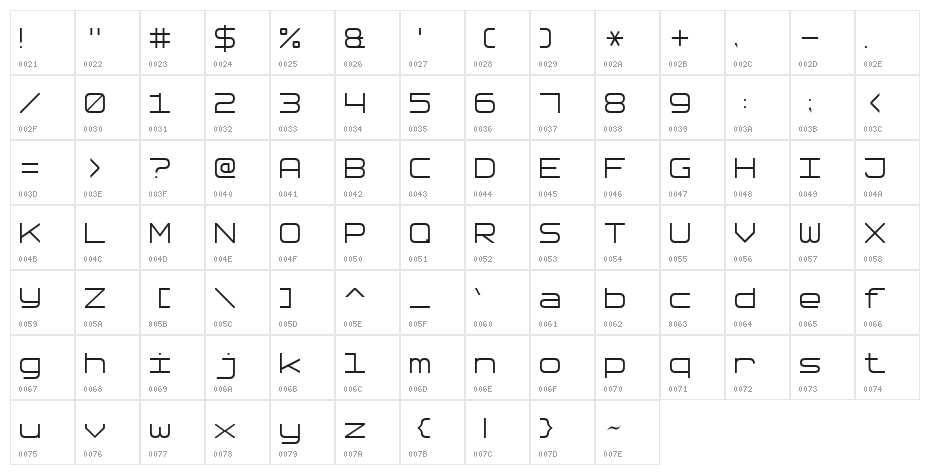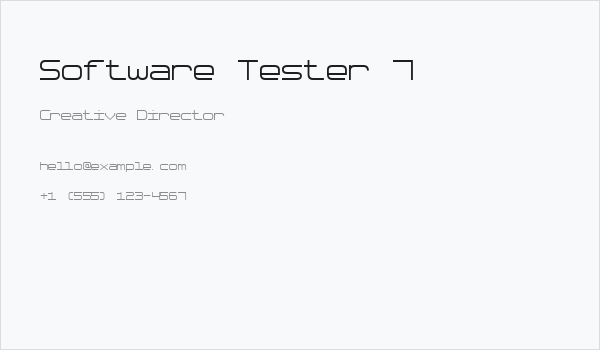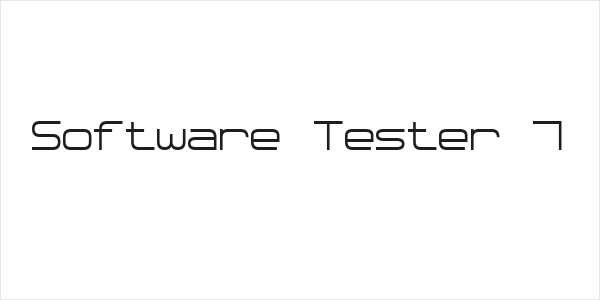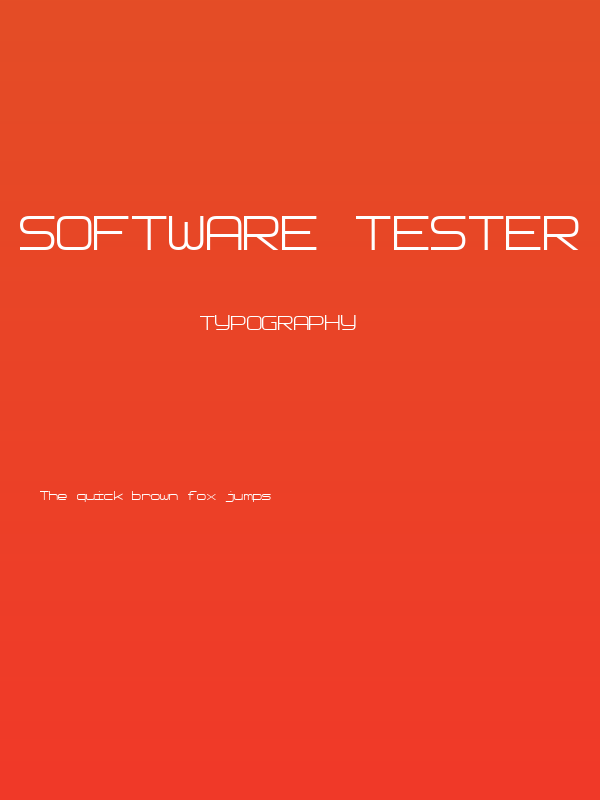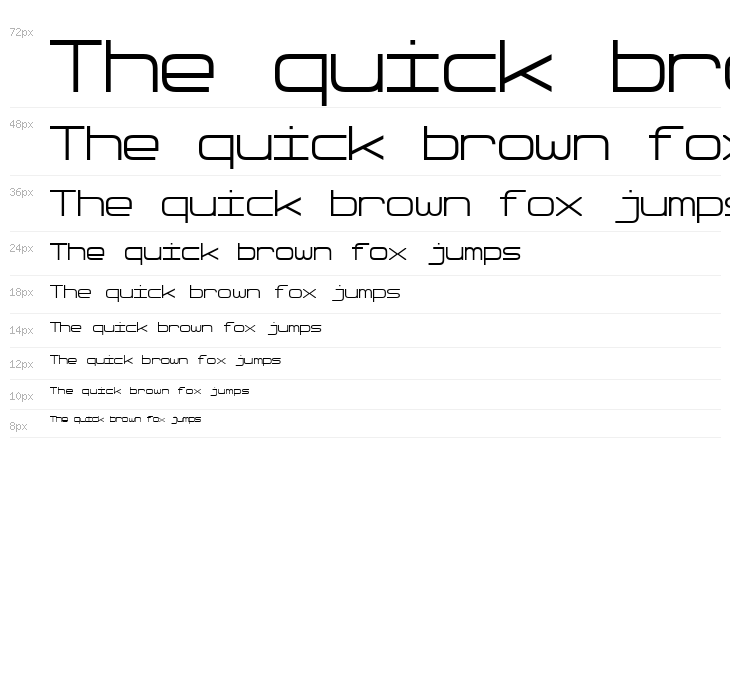
Software Tester 7 Font
Software Tester 7 Description
This font features a modern, geometric design with clean lines and a minimalist aesthetic. The characters are constructed with a consistent stroke width, giving it a uniform appearance. The uppercase letters are angular and structured, while the lowercase letters maintain a similar geometric style with slight variations in curvature. The numerals are distinct and align well with the overall design, making them easily readable. Special characters are designed to match the font's sleek and contemporary look, making it suitable for digital and print media. The font's simplicity and clarity make it versatile for various applications.
| Use Case | Headlines, Logos, Digital interfaces |
| Proposed Projects | Ideal for tech branding, digital interfaces, modern advertising, and minimalist design projects. |